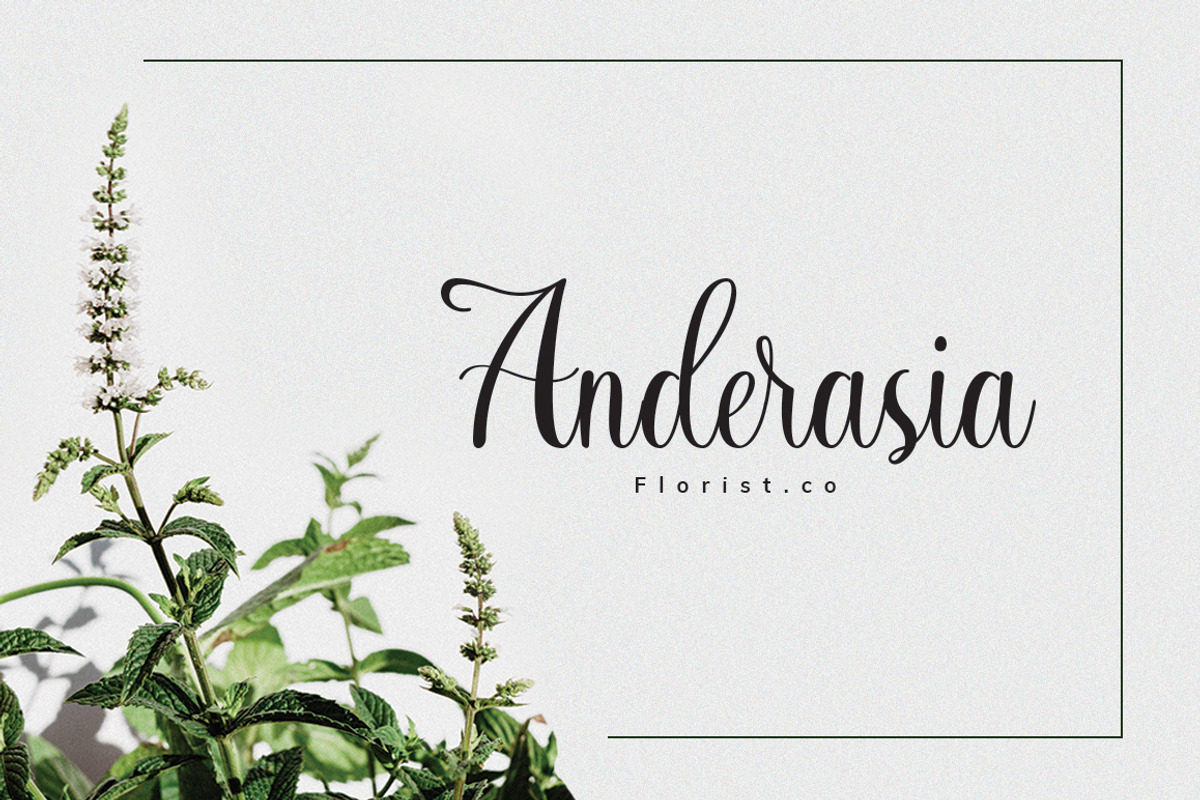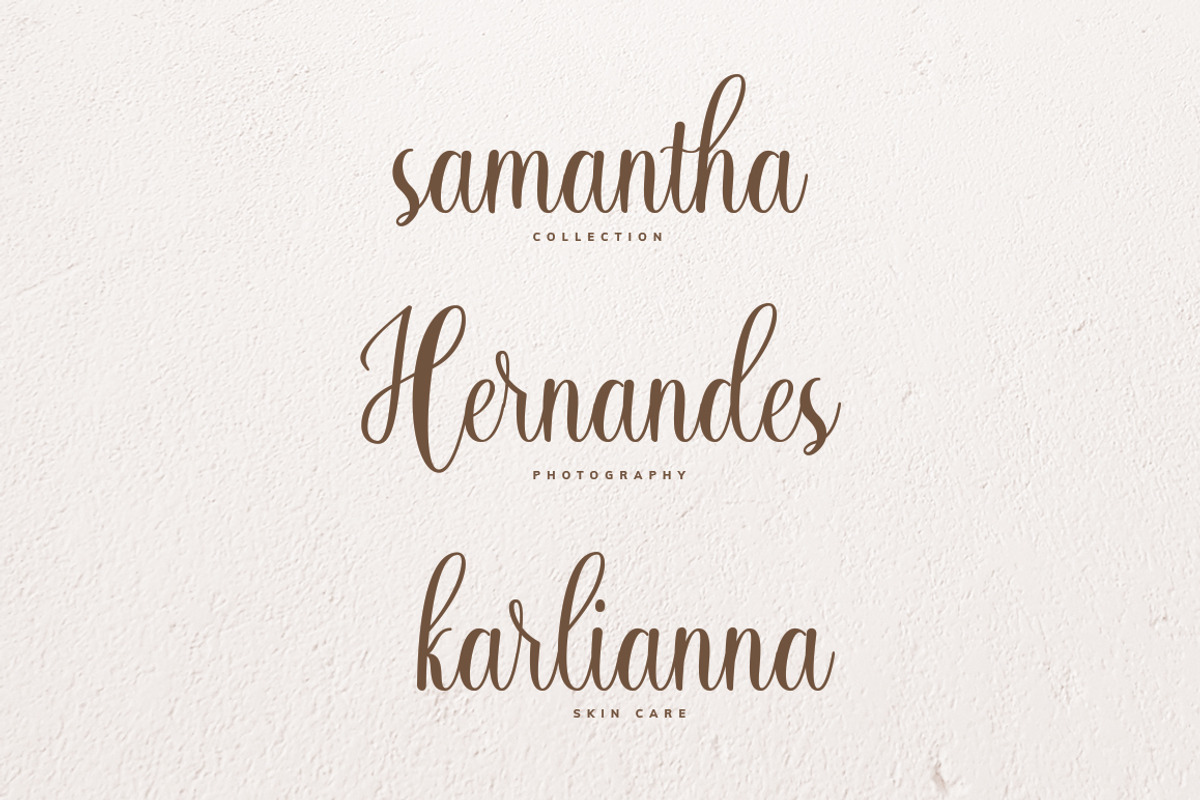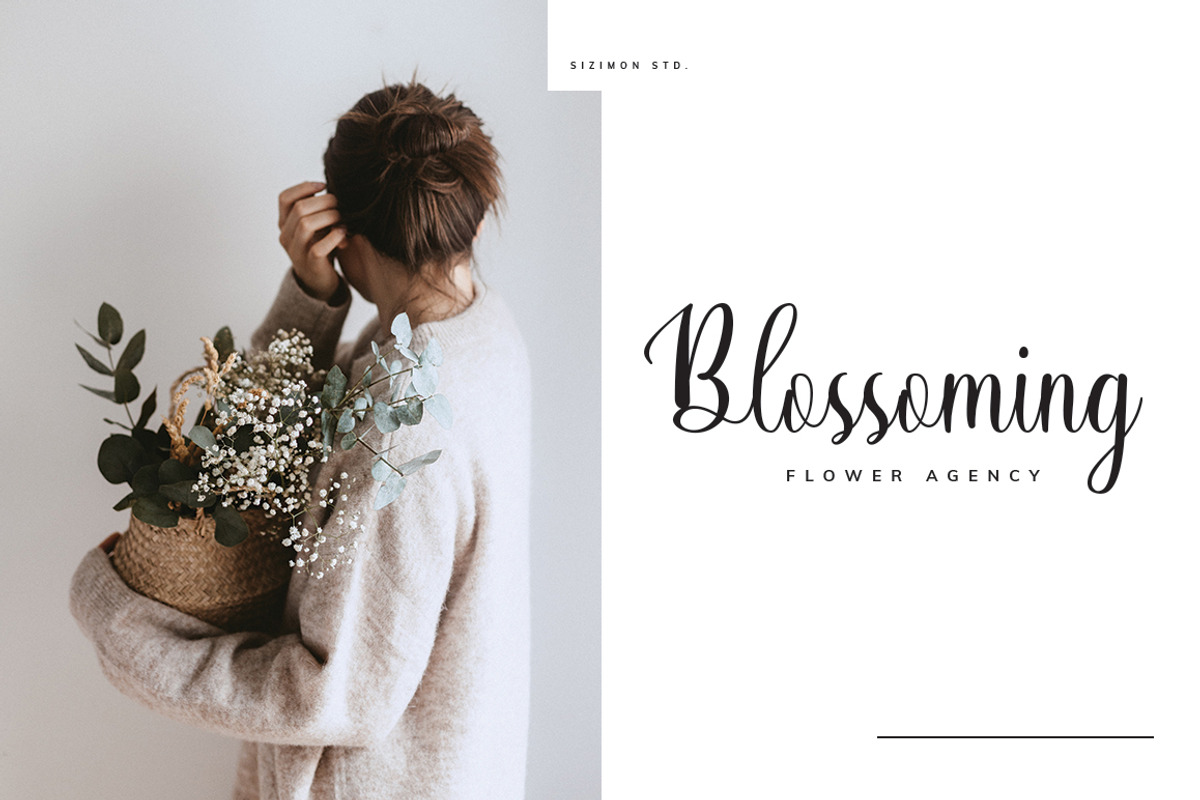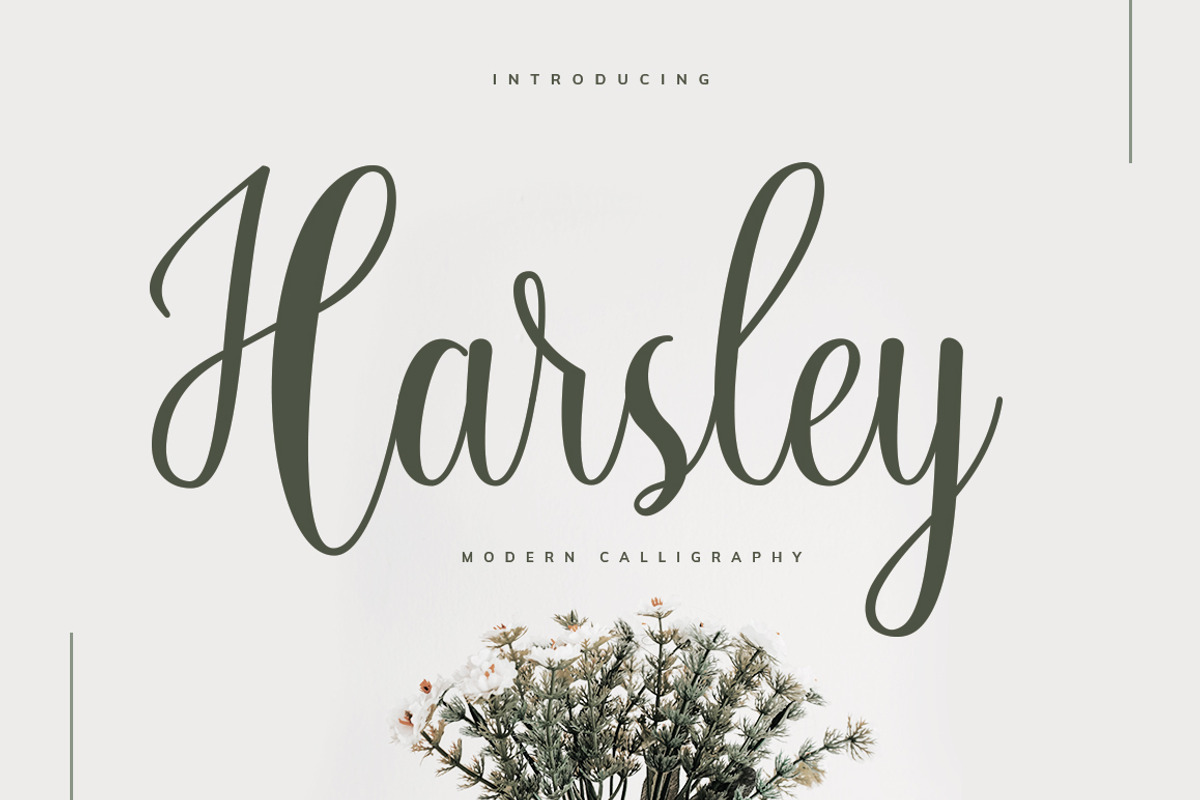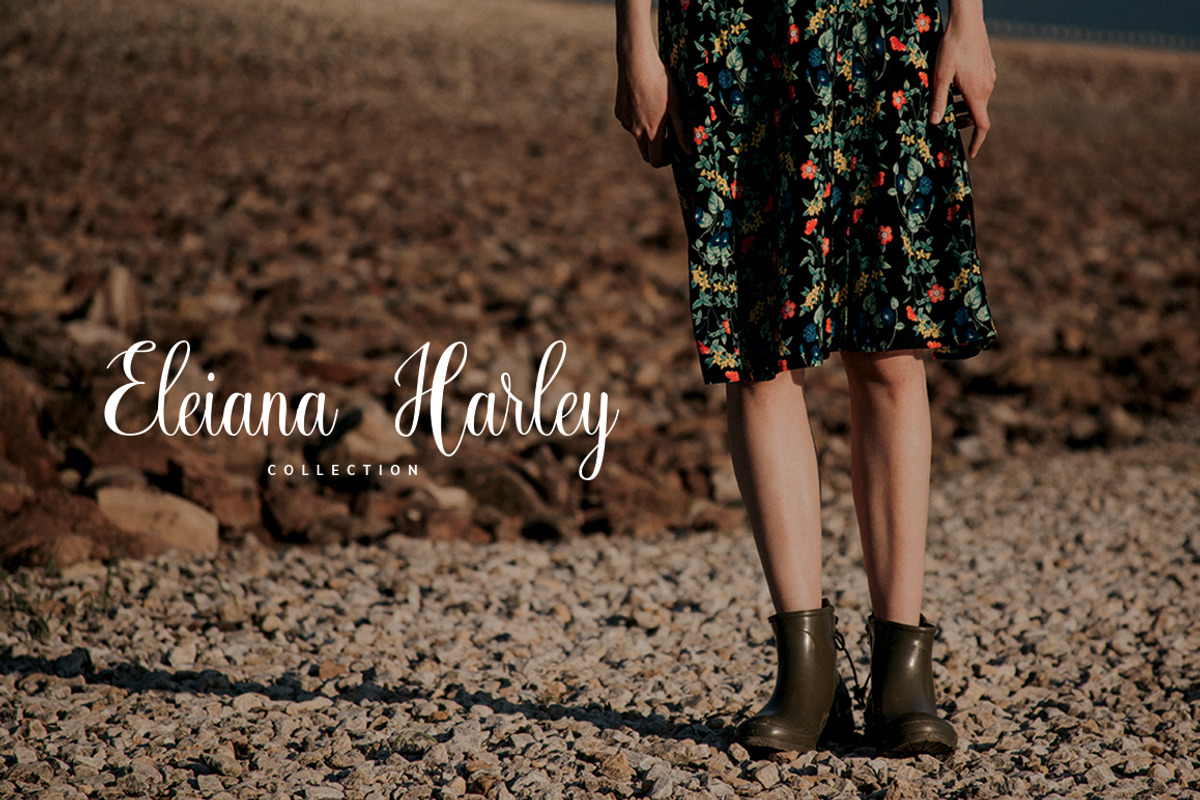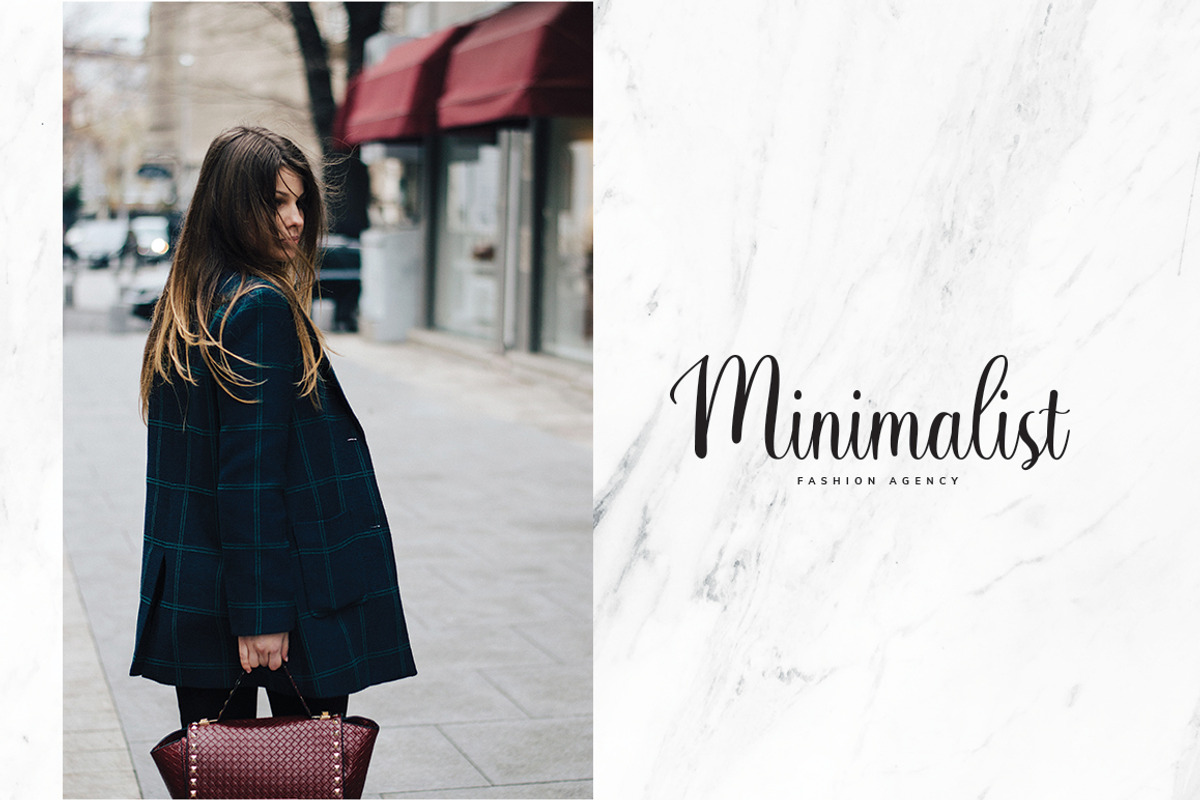
Harsley
Harsley is a beautiful and light script that will add a fun feel to any design. Modern calligraphy font. It is elegance, modernity, and friendly. Harsley a beautiful for wedding card design, logotype, website header, fashion design, and any more.